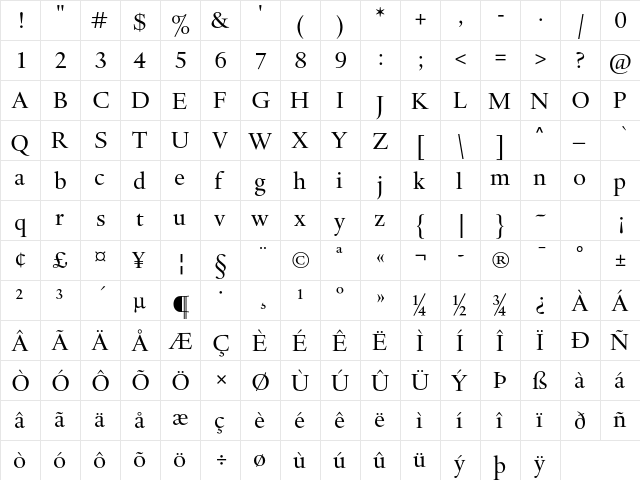
Haarlemmer MT Std Regular Font Preview
Haarlemmer MT Std Regular
Design Context for Haarlemmer MT Std Typeface
Haarlemmer MT Std offers clean, dependable letterforms without strong stylistic allegiance, making it a practical choice for designers who need flexibility.